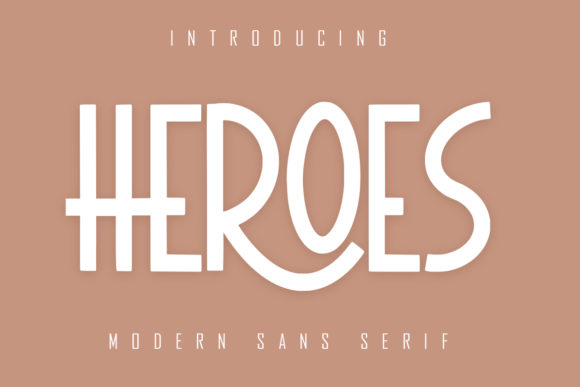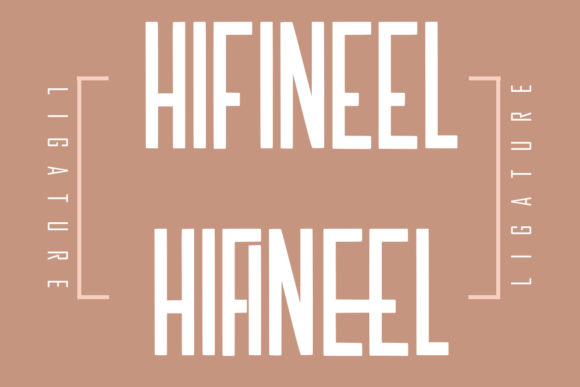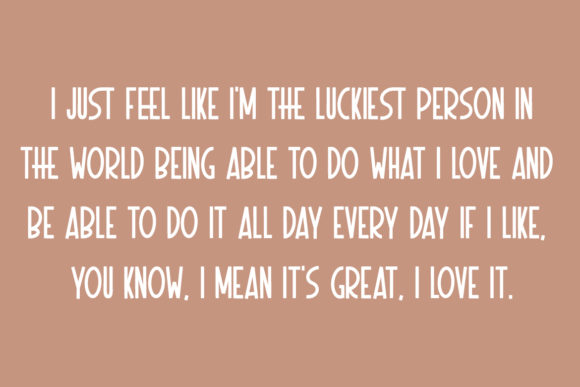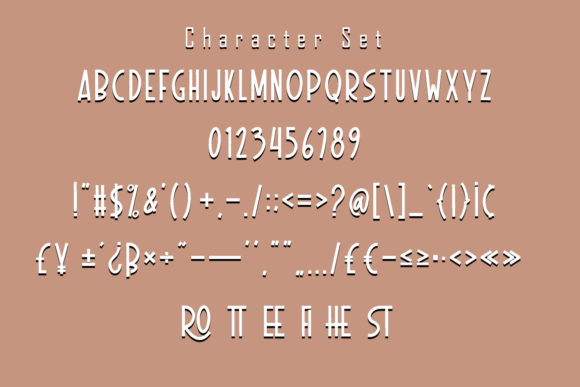
Heroes Font Font
About the Heroes Font Font
From logos to headlines, the Heroes Font Font is the perfect choice for making a lasting impression. Heroes is a modern and daring sans serif font. It has a classy and elegant look that can be used for logos, branding, invitations, stationery, wedding designs, social media posts, and much more!
Heroes Font excels in headlines, short body text, and branding applications where a strong, sophisticated presence is desired. Its elegant geometry makes it ideal for logos, posters, and packaging for high-end products or luxury brands. However, its bolder weights are less suitable for lengthy paragraphs or UI elements where readability is paramount.
Consider pairing Heroes Font with a clean sans-serif like Lato for body copy to maintain a modern feel, or a classic serif like Garamond for a more traditional contrast in formal applications. For a playful yet sophisticated look, a script font like Great Vibes could be effective, particularly in wedding invitations or branding for creative businesses.
The overall personality of Heroes Font is bold, modern, and sophisticated, conveying a sense of confidence and high quality. It’s best suited for brands projecting ambition and style.
Heroes Font Font Usage Examples
Heroes Font Font Example